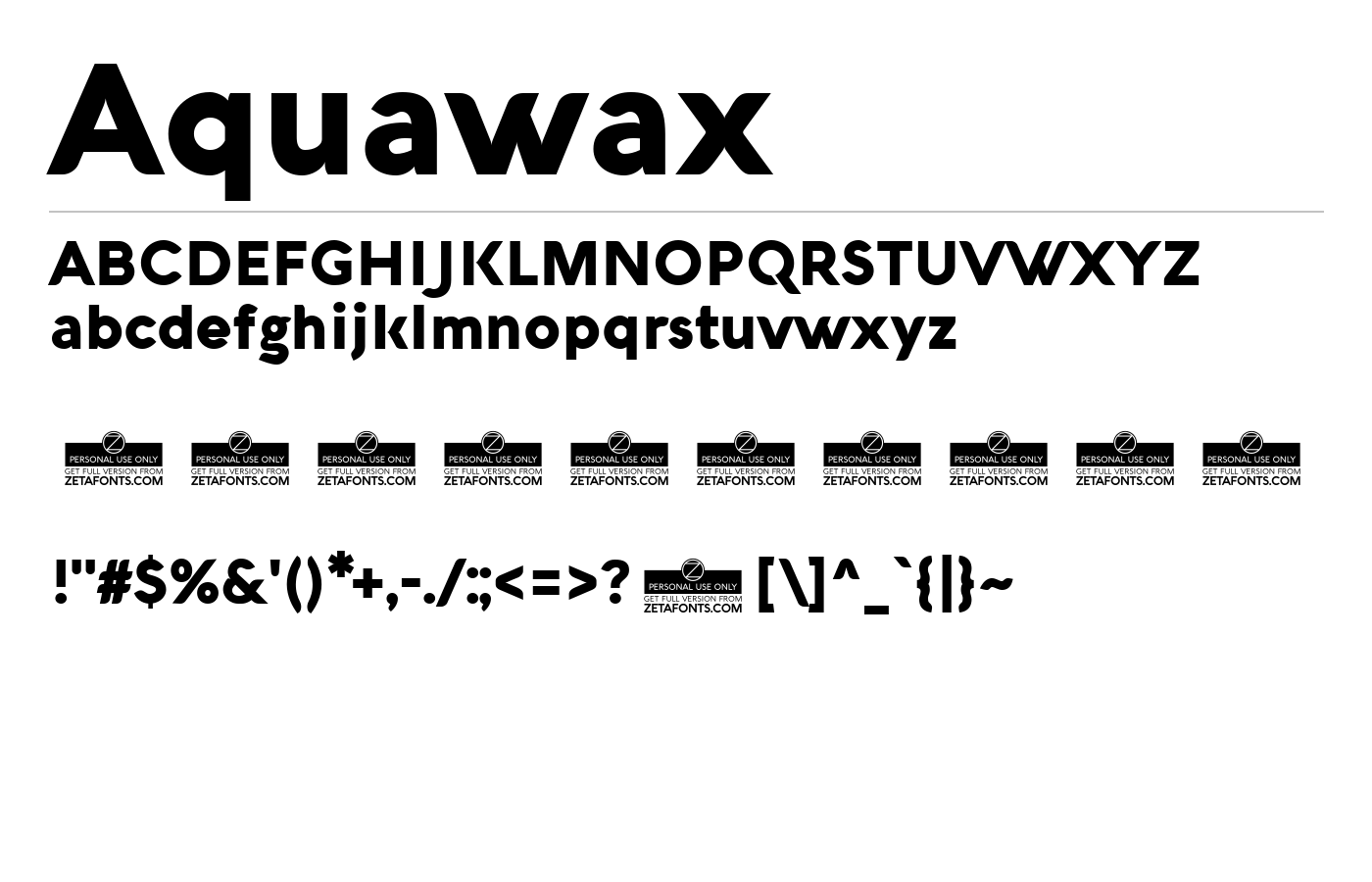
Aquawax is a bold, geometric sans serif font characterized by its strong, angular letterforms and consistent stroke weight, giving it a modern and impactful look. With its slightly condensed width and high x-height, it offers excellent readability and a confident presence, making it ideal for logos, headlines, and branding that demand a contemporary, assertive style. Its clean and solid construction communicates strength and clarity, fitting well with tech, sports, and urban design projects.
Aquawax Font
About Aquawax Font
| Font family | Aquawax Font |
| Designer | Francesco Canovaro |